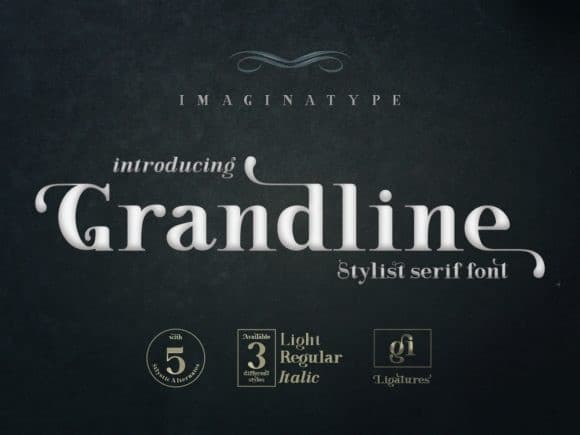
Grandline Serif Font
Grandline is an elegant and unique serif font. It can easily be matched to an incredibly large set of projects, so add it to your creative ideas and notice how it makes them stand out!
This font is PUA encoded which means you can access all of the glyphs and swashes with ease! It features a varying baseline, smooth lines, gorgeous glyphs and stunning alternates.